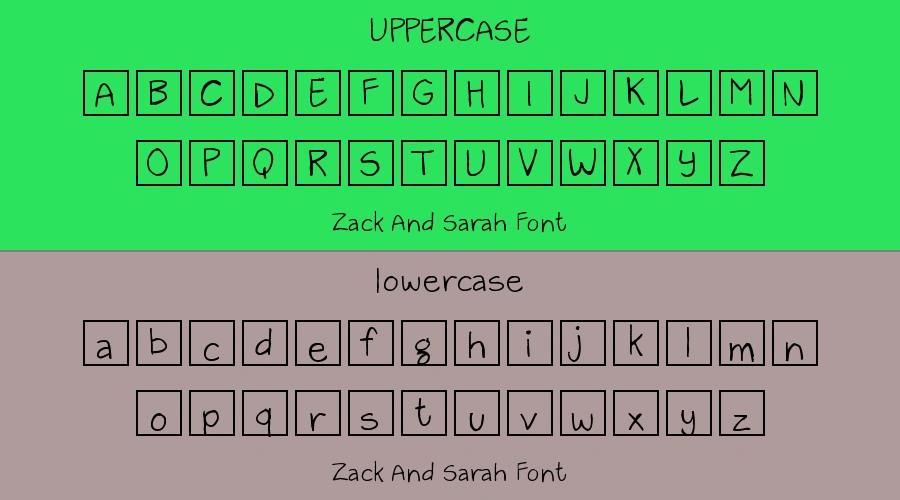
About Zack And Sarah Font
Designed with precision, Zack And Sarah Font merges playful elements with reliability in every character. This versatility makes it particularly effective for brand identities, where accuracy and visual authority directly impact communication quality. Each letterform demonstrates meticulous craftsmanship.
Technical excellence shines through elements like ink traps and language support, enhancing typographic versatility. In footnotes settings, Zack And Sarah Font proves its worth through superior overlay performance. The thoughtful execution of corner treatment and character ensures professional results.